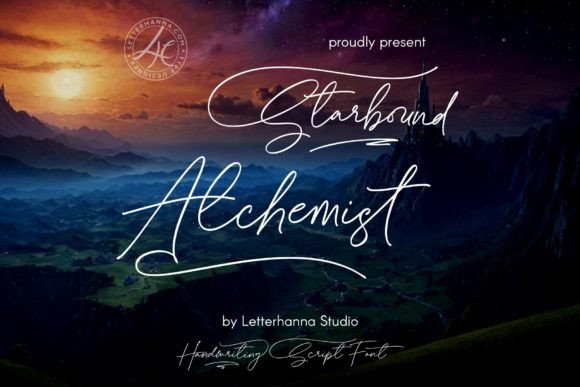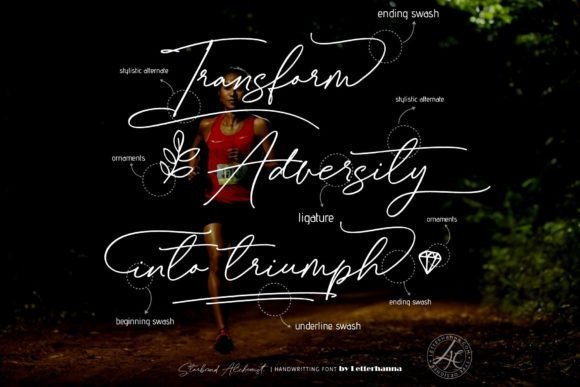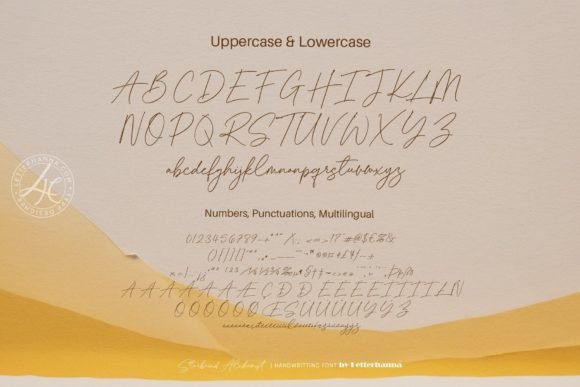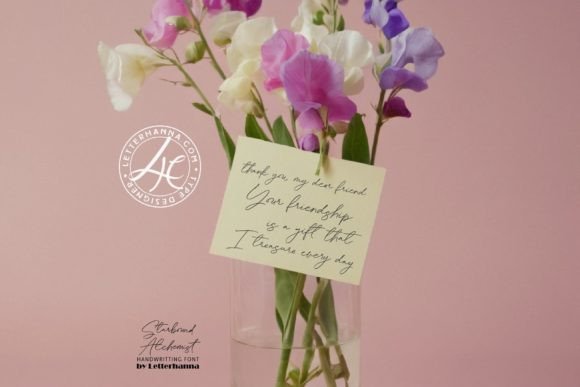
Starbound Alchemist Font
About the Starbound Alchemist Font
The wait is over! The incredible Starbound Alchemist Font is now available for your design toolkit. Introducing Starbound Alchemist: A Font for the Mystical Explorer
Embark on a celestial journey with Starbound Alchemist, a new handwritten script font that captures the essence of cosmic wonder and arcane knowledge. Its whimsical glyphs dance across the page, evoking the spirit of ancient alchemists and stargazers.
Perfect for:
Crafting magical invitations, stationery, and branding materials
Adding a touch of enchantment to logos, posters, and book covers
Creating captivating headlines and quotes
Starbound Alchemist Font Usage Examples
Starbound Alchemist Font Example